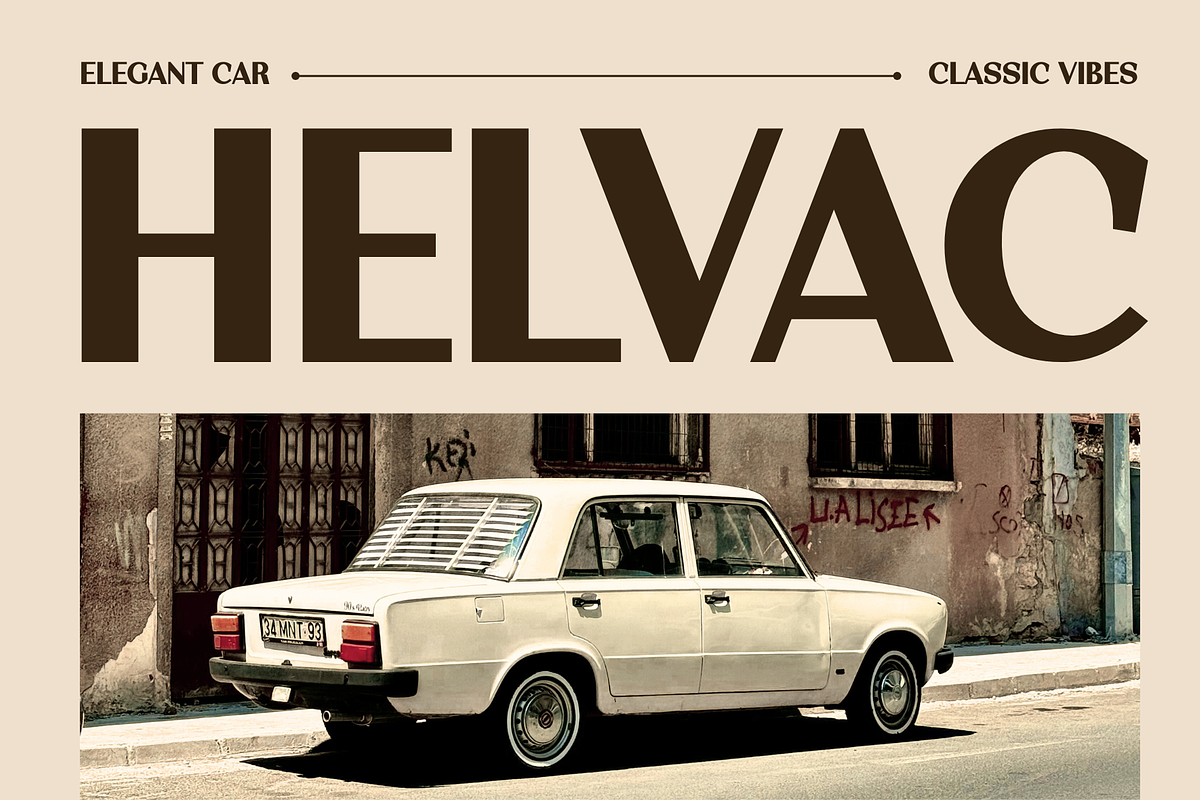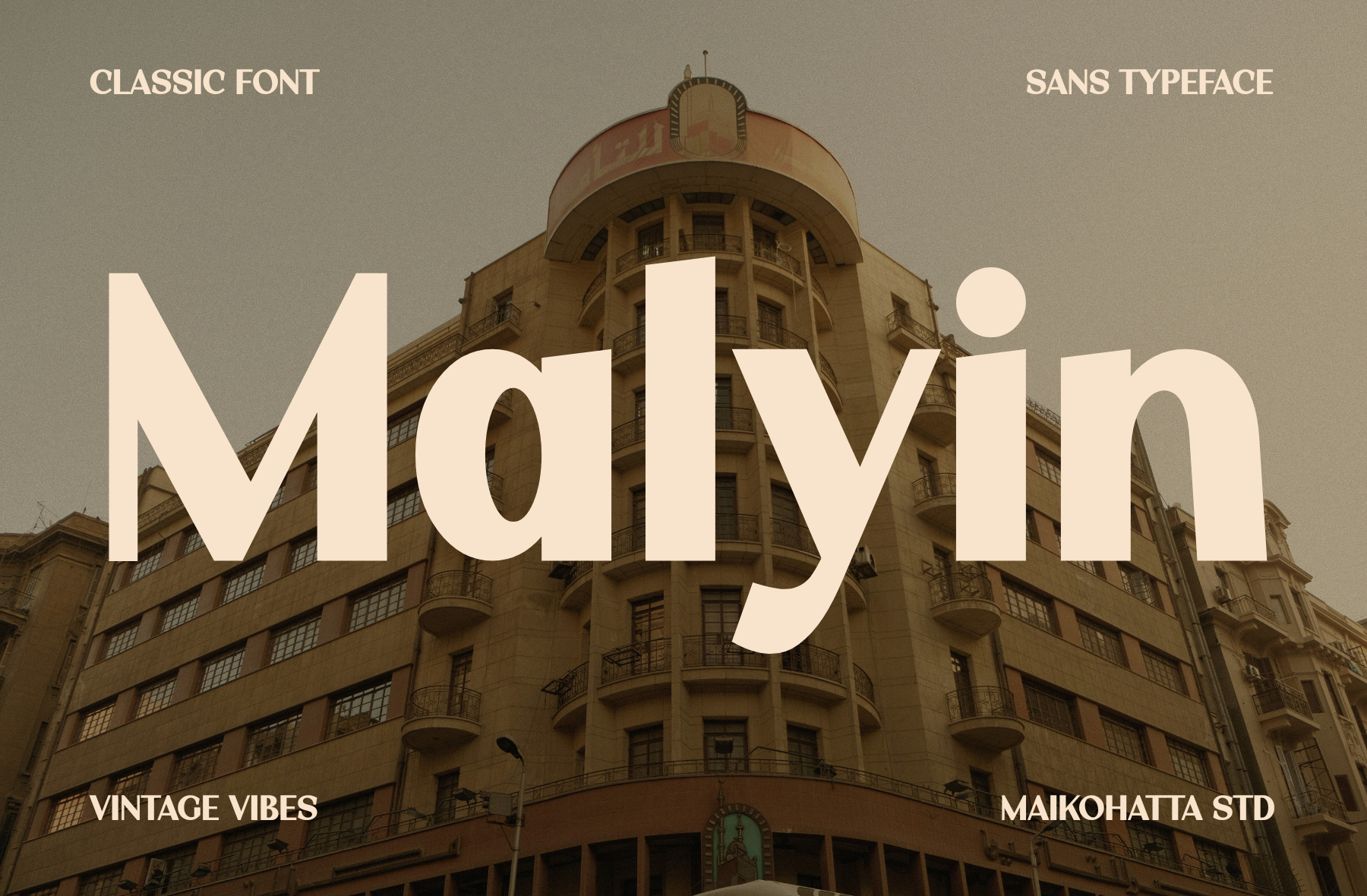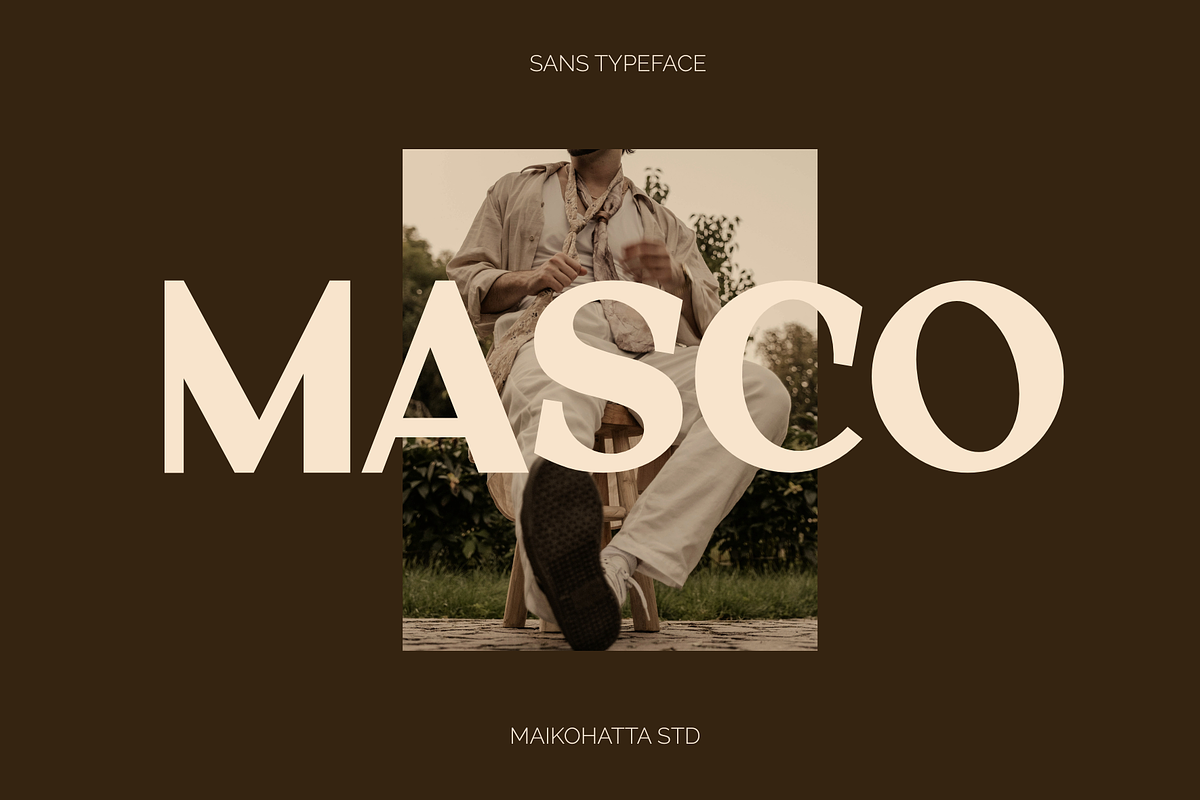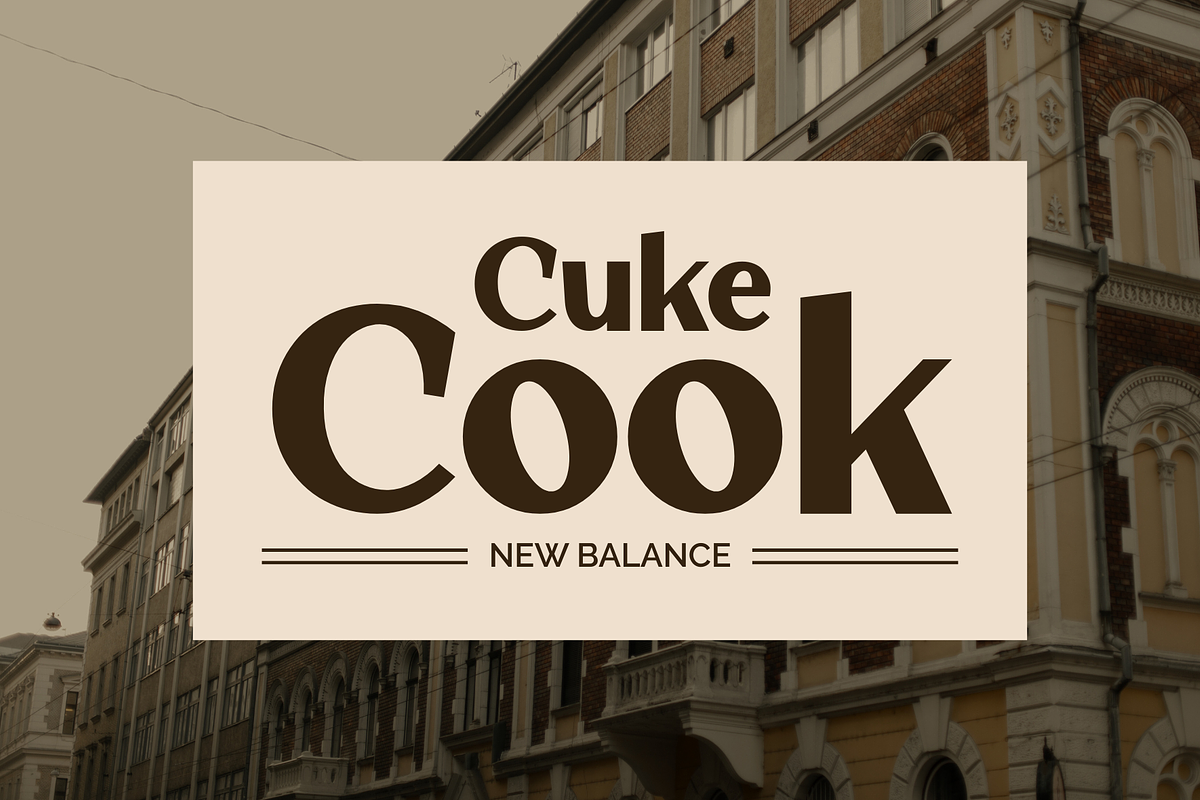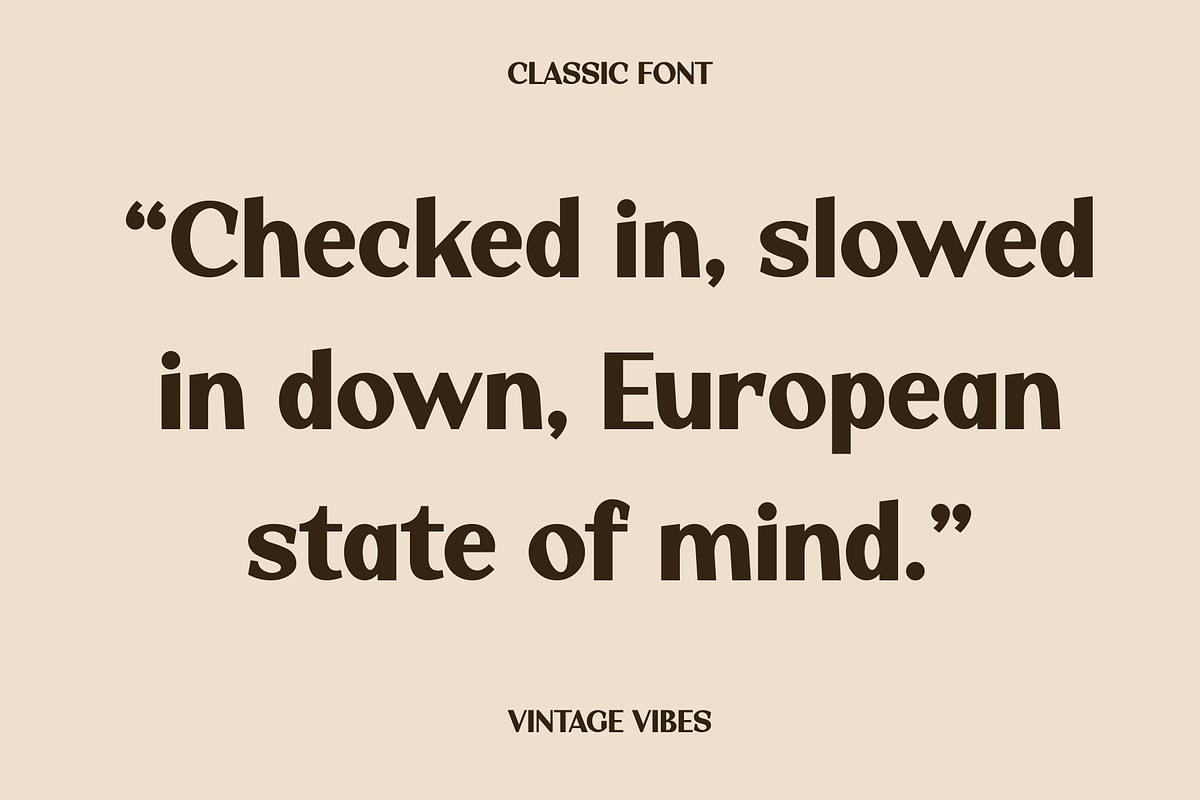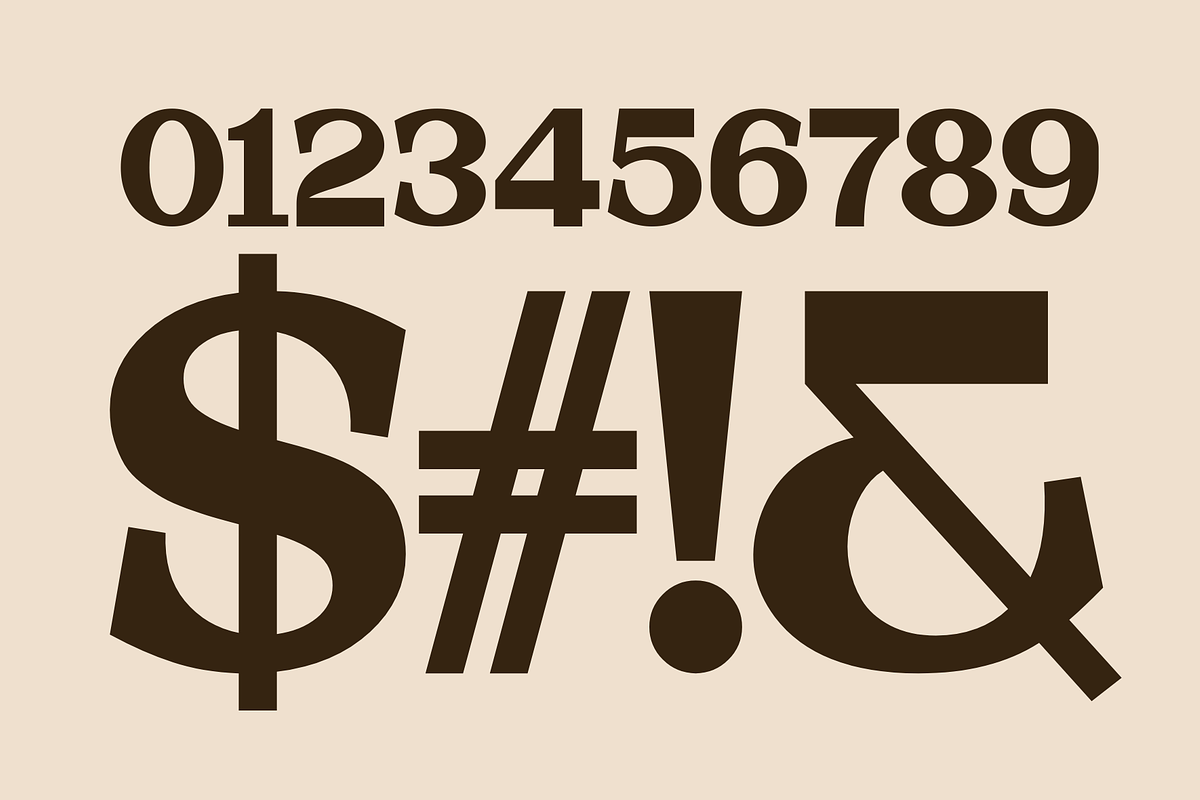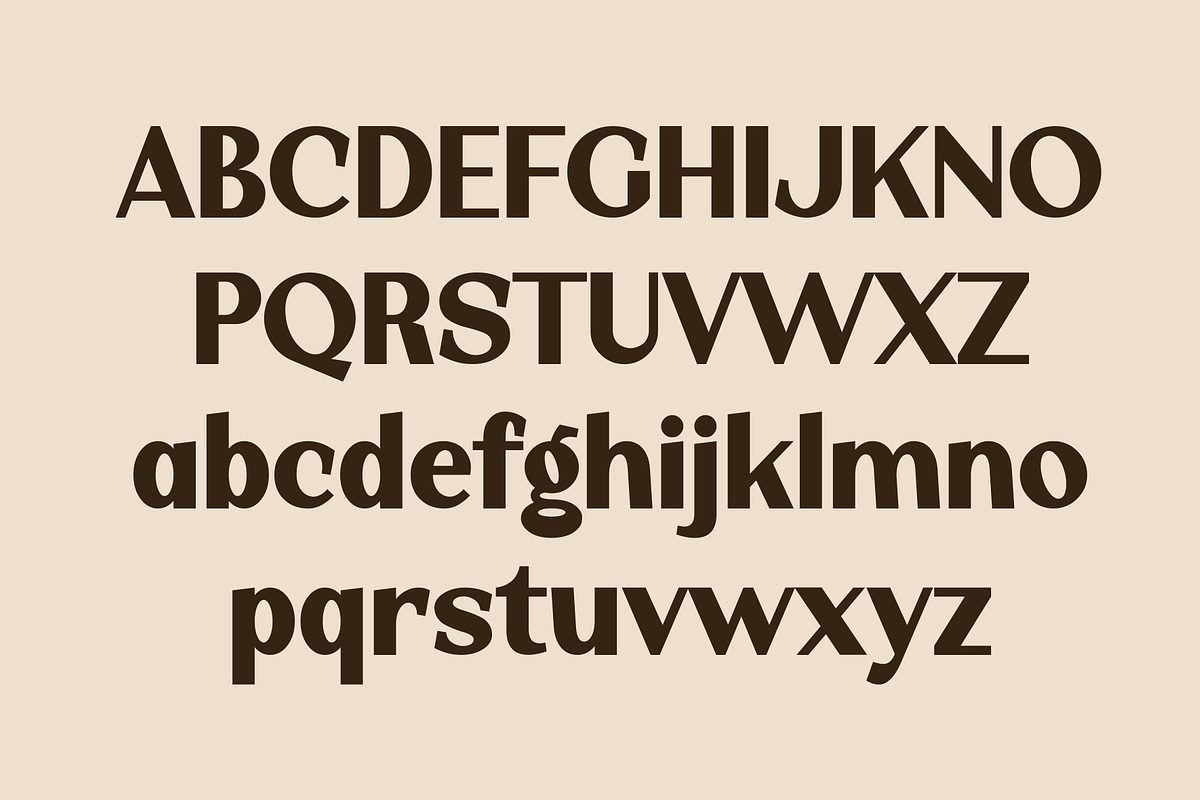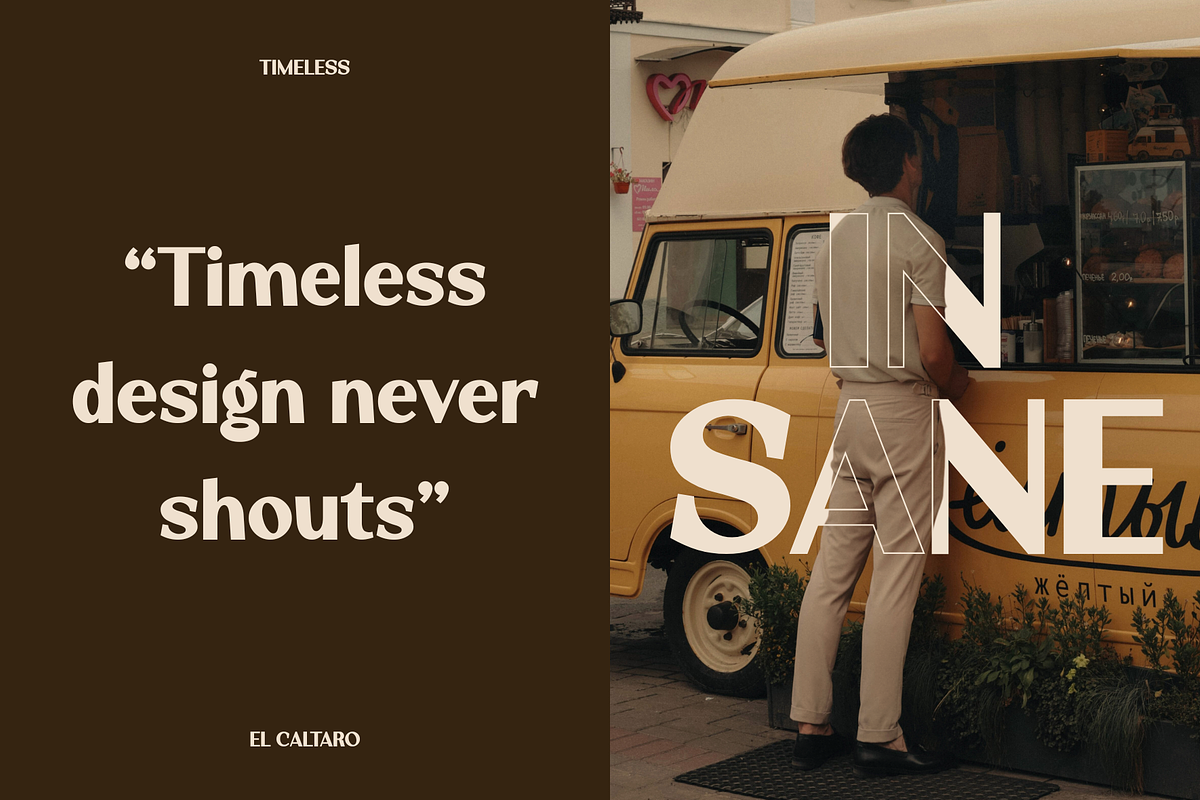
Malyin – Elegant Retro Typeface
Introducing our new product Malyin – Elegant Retro Typeface
Malyin is a classic sans typeface with a strong vintage soul and timeless elegance. Inspired by old European architecture and retro editorial design, this font blends clean sans-serif structure with subtle classic character.
Its bold yet soft letterforms make it perfect for headlines, branding, posters, logos, packaging, and editorial layouts. Malyin delivers a warm, nostalgic vibe while remaining modern, readable, and versatile for both print and digital use. Ideal for designers seeking a refined retro aesthetic with contemporary appeal.